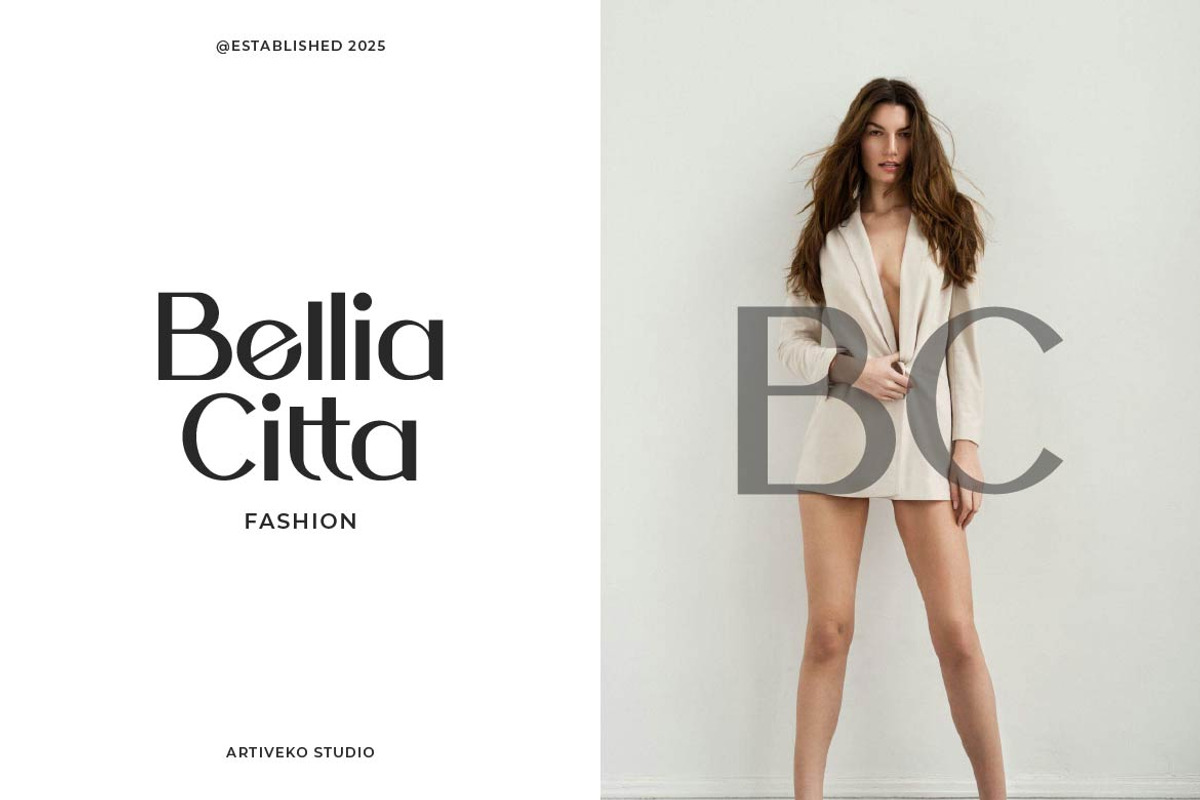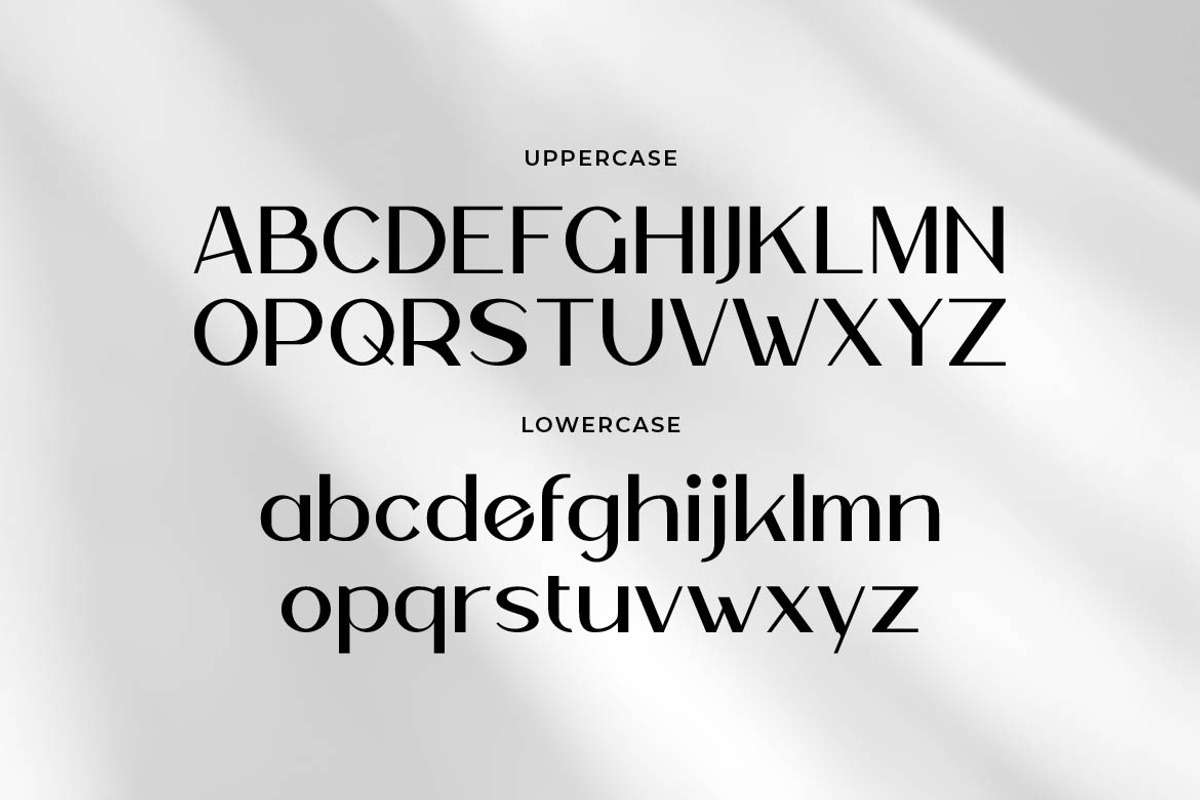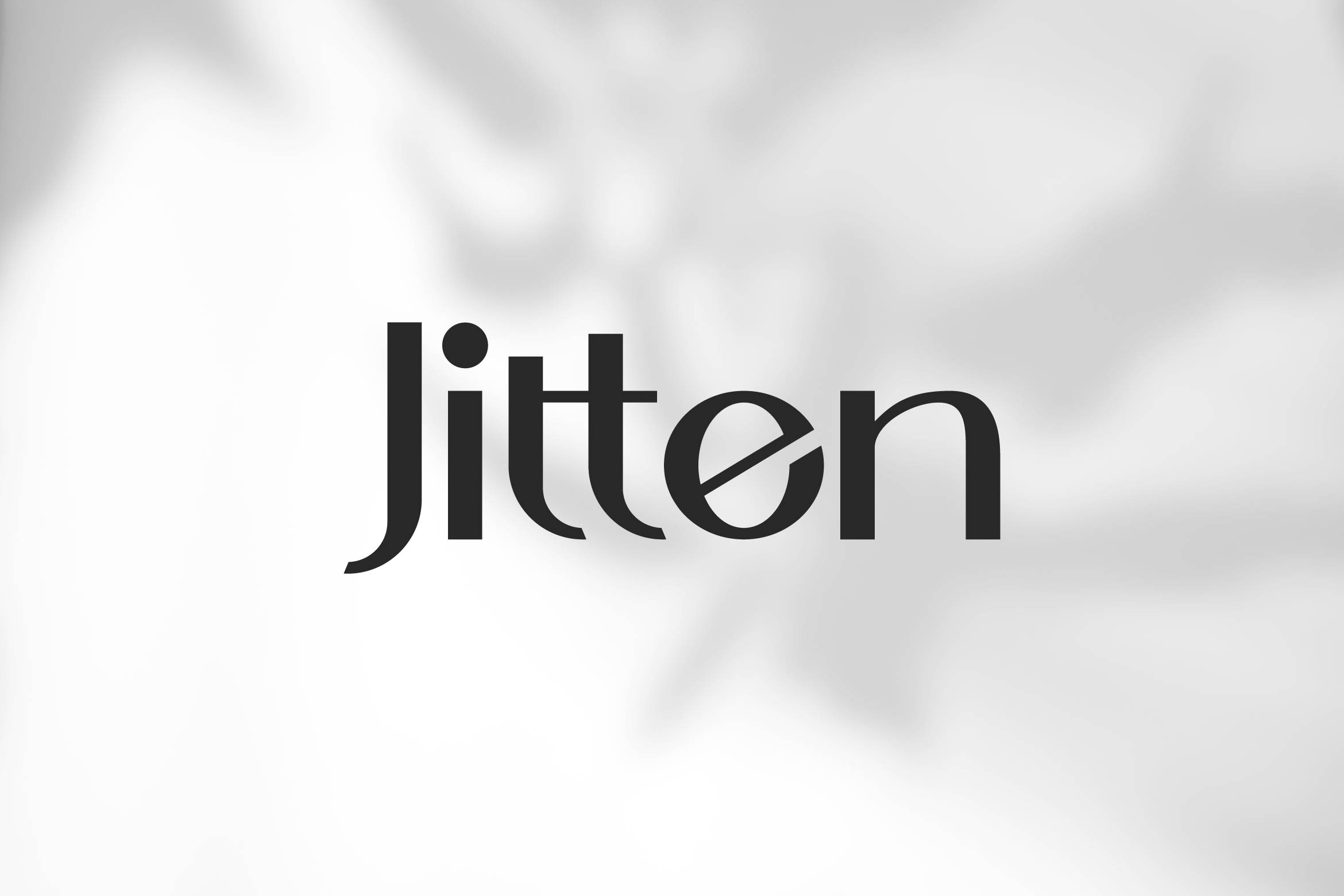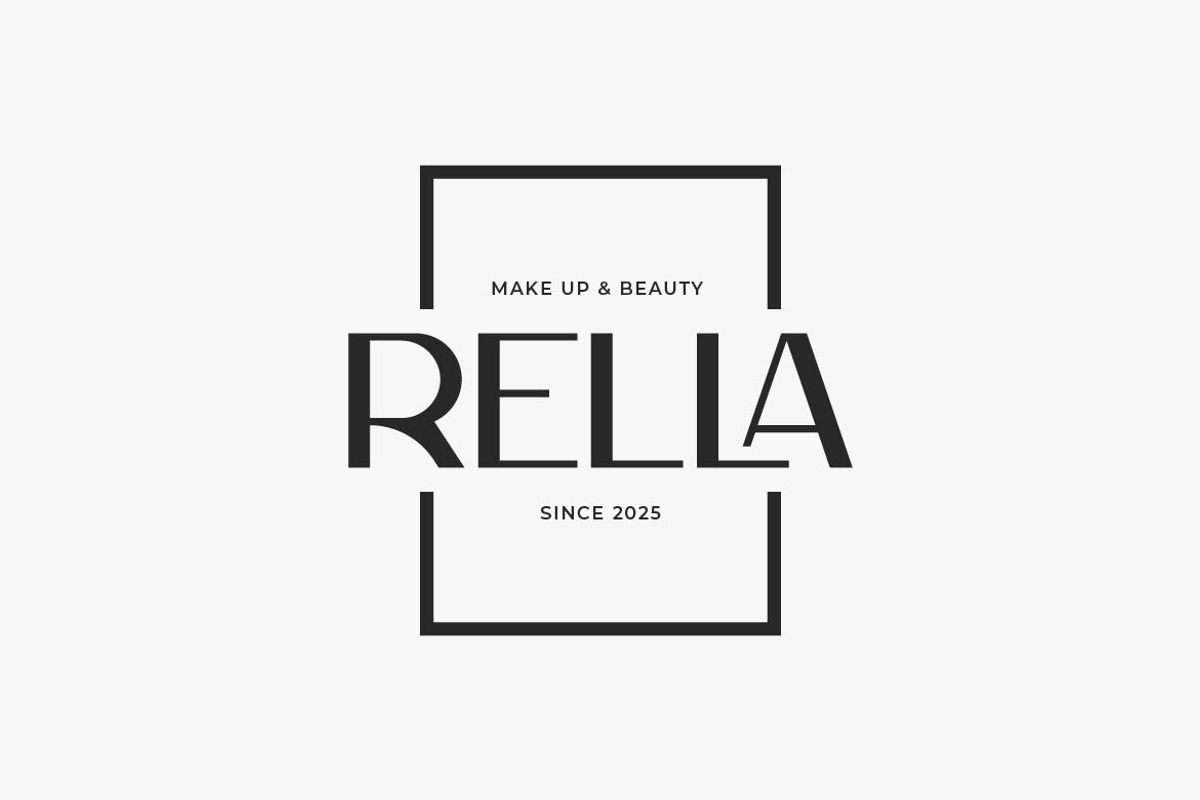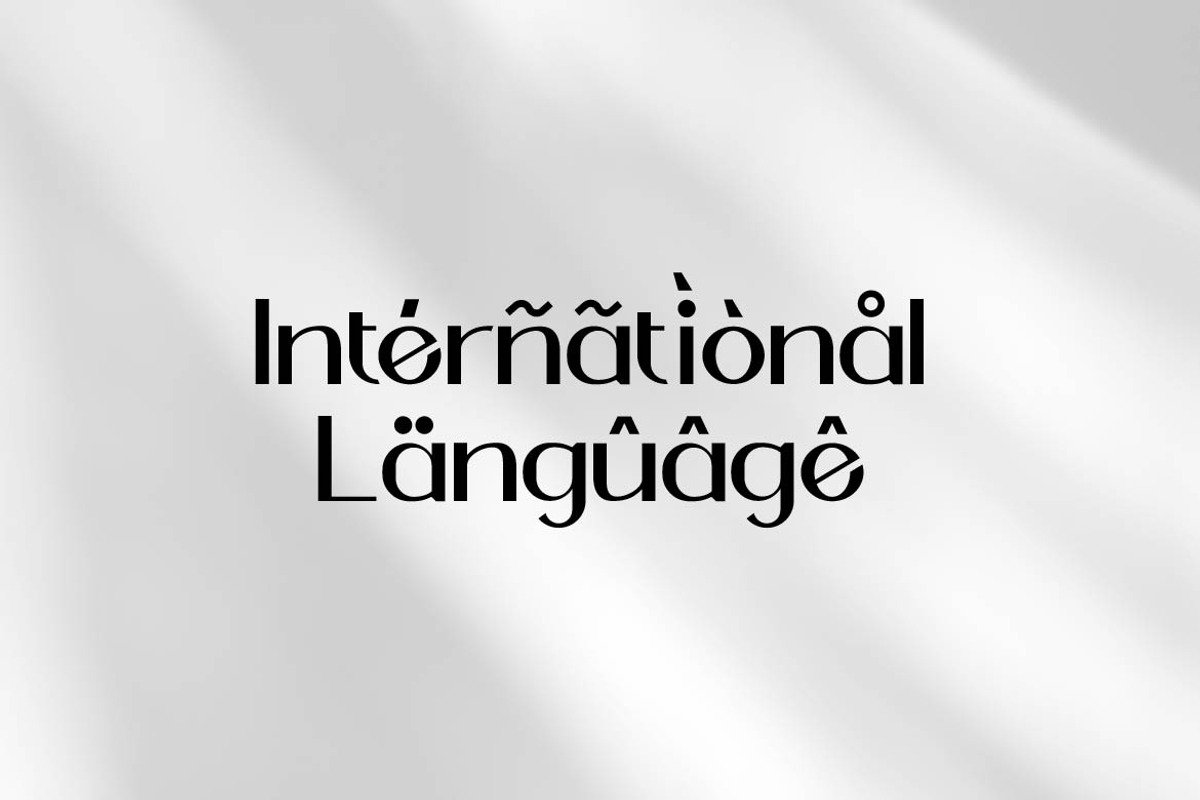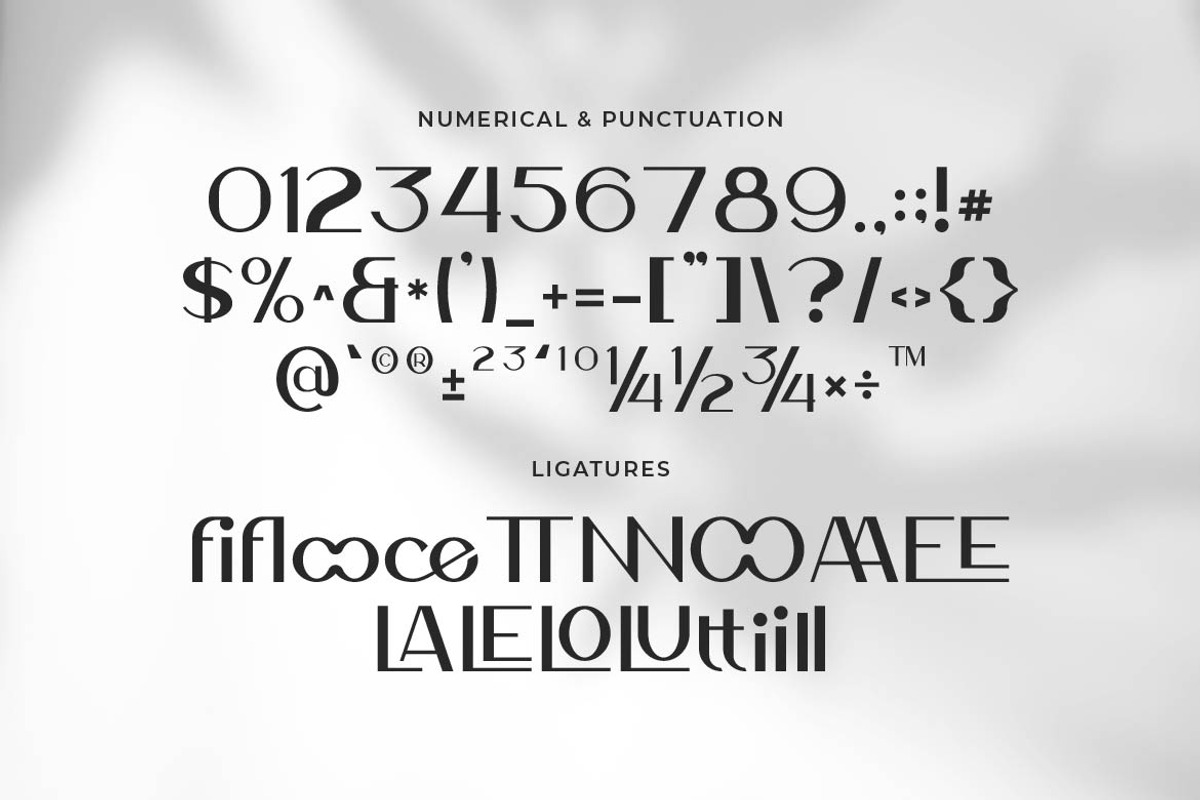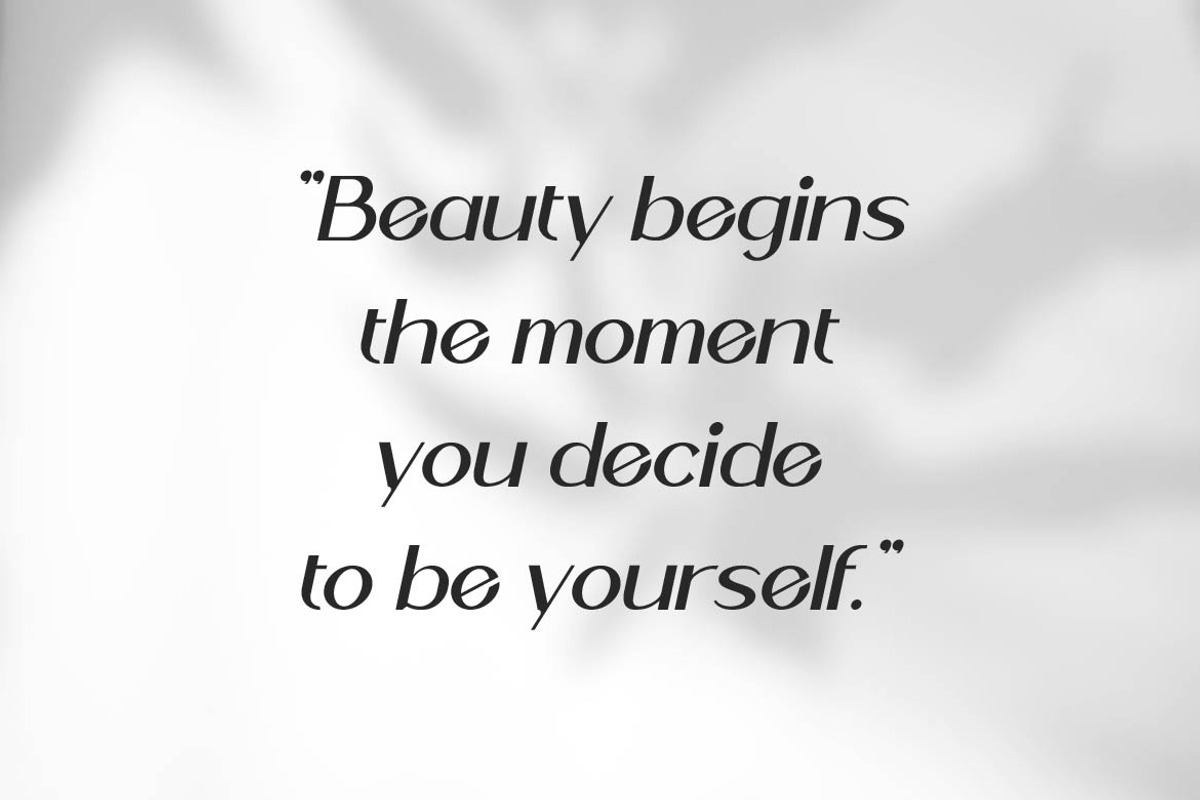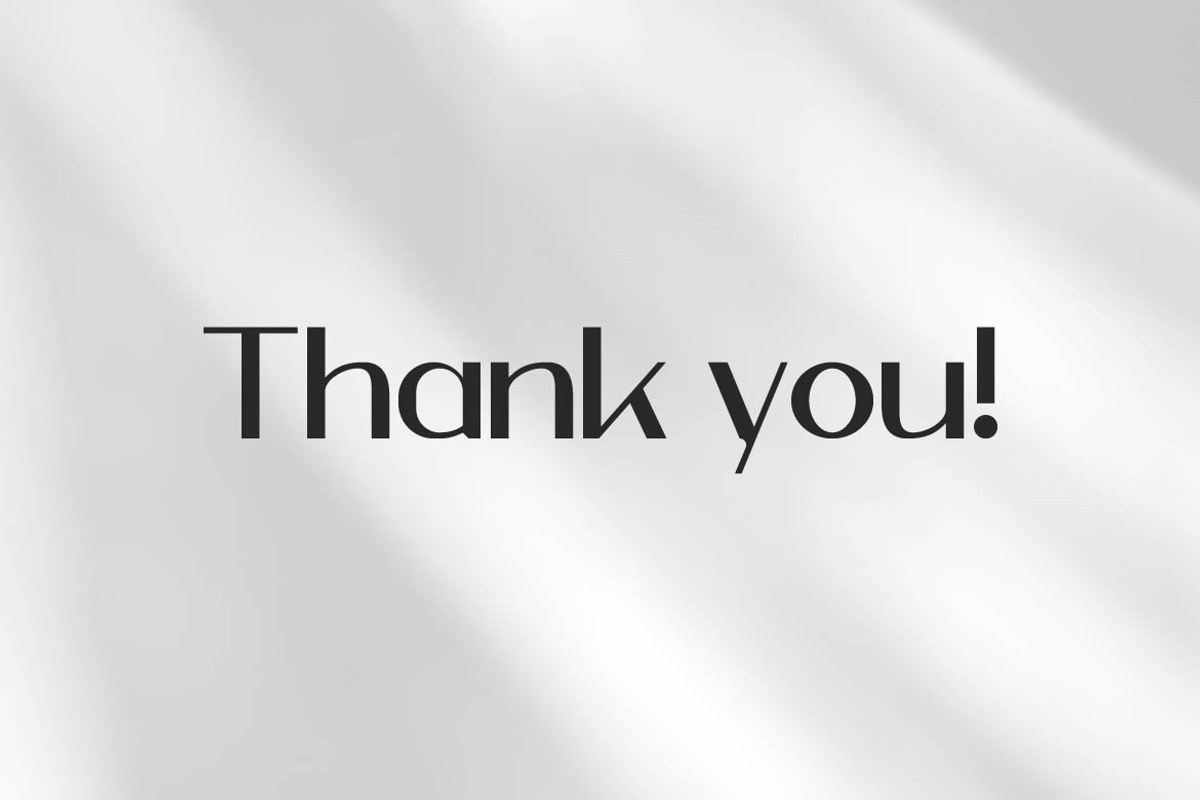
Jitten Minimalist Sans Font
Jitten is a clean and modern sans serif font designed with a gentle, feminine touch. Its smooth curves, airy spacing, and subtle elegance make it the perfect choice for lifestyle branding, fashion lookbooks, beauty packaging, social media templates, and wedding-related designs.